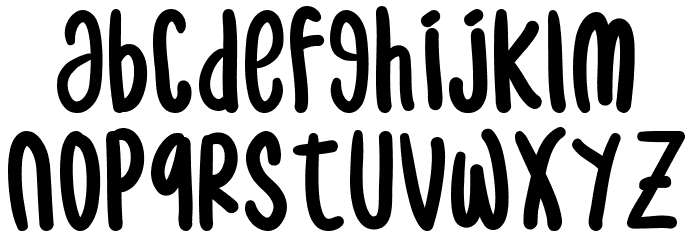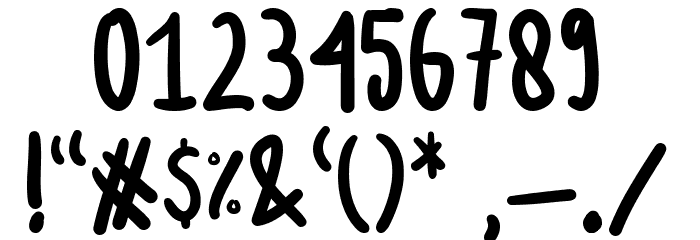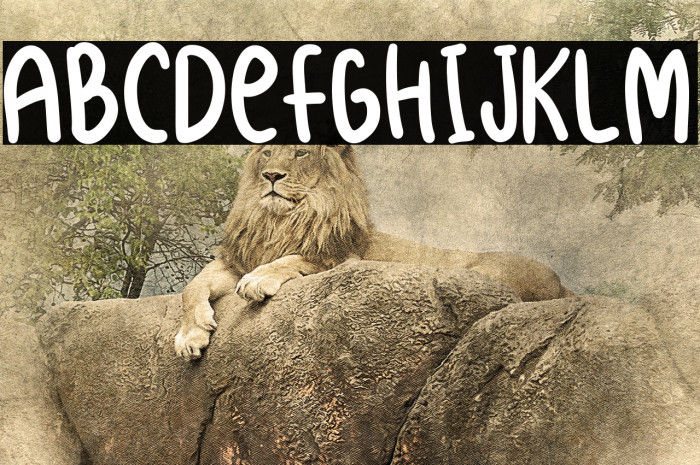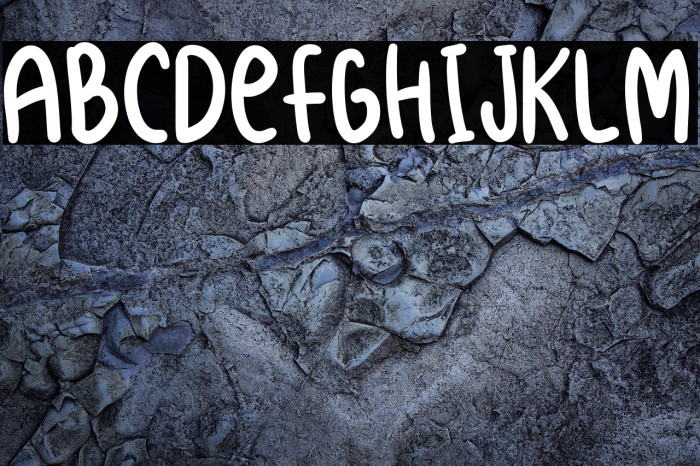
samble Font
This playful and bold font features a handwritten style with rounded edges and a casual, friendly appearance. The letters are slightly irregular, adding a whimsical touch to the overall design. The uppercase and lowercase characters maintain a consistent style, with a smooth flow and a slightly condensed form. Numbers and special characters are crafted with the same playful aesthetic, making this font versatile for various creative projects. The thick strokes and rounded forms give it a strong presence, ideal for capturing attention.
A playful, bold handwritten font with rounded edges and a casual style.
- Proposed Projects: Ideal for children's books, playful branding, greeting cards, and social media graphics.
- Overall Style: Playful, Casual